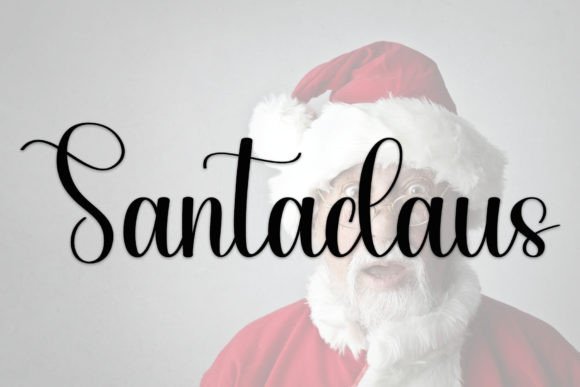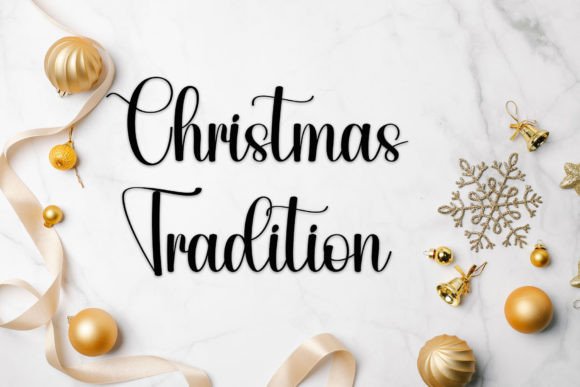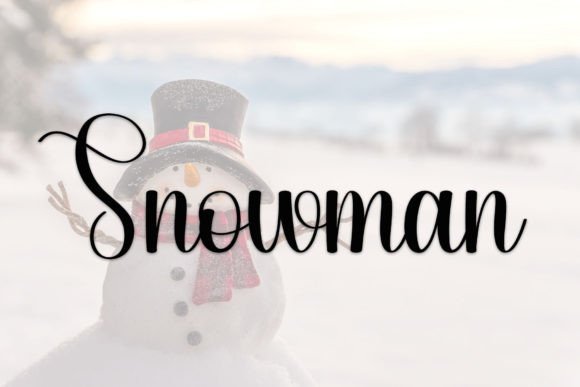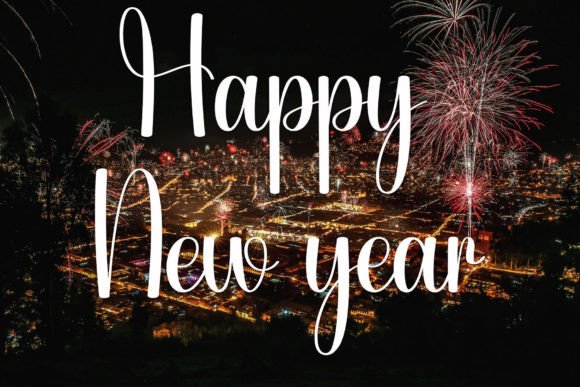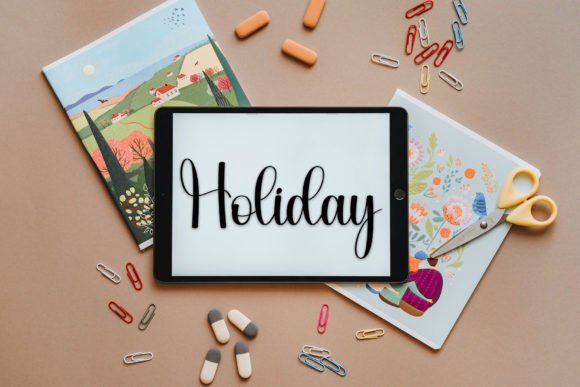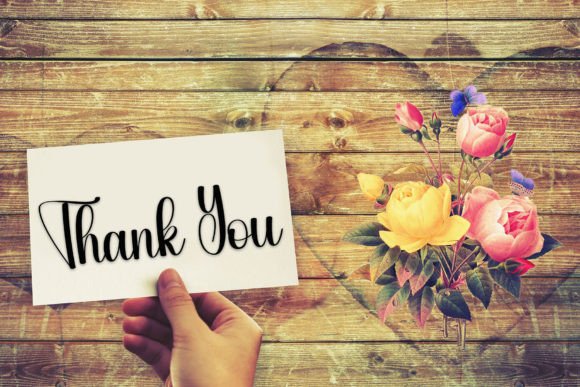
Get Ready to Indulge in the Sweet Taste of Creativity this Holiday Season
As you sit by the fireplace, surrounded by twinkling lights and the warmth of loved ones, you can’t help but feel the magic of the holiday season. It’s the perfect time to unleash your creativity and bring your festive projects to life. And what better way to do that than with a font that’s as sweet as the treats that fill your holiday plate?
Meet the Christmas Chocolate Font, a delightful and elegant handwritten font that adds a touch of sophistication to any design. Whether you’re creating holiday cards, gift tags, or festive social media posts, this font is sure to bring a smile to your face and a dash of holiday cheer to your projects. As a designer, you know that the right font can make all the difference, and the Christmas Chocolate Font is a valuable addition to your holiday design arsenal.
Christmas Chocolate Font Key Features
- Font Family: Christmas Chocolate is a decorative, script font designed for festive and holiday-themed applications.
- Character Set: Includes a wide range of characters, including uppercase and lowercase letters, numbers, punctuation marks, and special characters.
- Unique Characteristics: Features a unique, hand-drawn design with a chocolate-themed twist, adding a touch of whimsy and festivity to any design project.
Designer Review: Christmas Chocolate Font
At first glance, the Christmas Chocolate Font seems like a fun, playful addition to any holiday design project. ✨ The bold, cursive script is reminiscent of classic chocolate packaging, evoking feelings of nostalgia and warmth. The font’s weight and texture are well-balanced, making it suitable for a variety of applications, from digital ads to print materials.
- Unique and recognizable style
- Highly customizable with various weight and color options
- Potentially effective for creating a festive atmosphere
However, there are some limitations to consider. ⚠️ The font’s design may be too cliche for some users, and the overuse of this style could lead to design fatigue. Additionally, the font’s limited character set may not be suitable for complex, multi-paragraph texts. The font’s weight and texture can also make it difficult to read in certain contexts, particularly at smaller font sizes.
Overall, the Christmas Chocolate Font is a solid choice for designers looking to add a touch of holiday cheer to their projects. While it has its limitations, the font’s unique style and high customization options make it a valuable addition to any design arsenal. With careful consideration and restraint in its use, the Christmas Chocolate Font can be a powerful tool in creating engaging, festive designs.
Use the Christmas Chocolate Font in conjunction with festive colors and decorations to create a holiday-themed design.
Use the font in combination with images or graphics to create a cohesive design.
The Christmas Chocolate Font is perfect for:
Creating holiday-themed invitations and greeting cards.
Designing festive social media graphics and ads.
Adding a holiday touch to presentations and documents.
Alternatives to Christmas Chocolate Font for Designers
Rockwell Font
Rockwell Font is a serif typeface designed by Harold Lohr in 1934. It’s a classic, elegant font suitable for formal and traditional designs. Rockwell Font can be used for formal invitations, certificates, and wedding designs. It’s a great alternative to Christmas Chocolate Font when you need a more formal and timeless look.
Comparison: While Christmas Chocolate Font has a playful, handwritten feel, Rockwell Font is more polished and sophisticated. Rockwell Font is ideal for designs that require a sense of tradition and elegance.